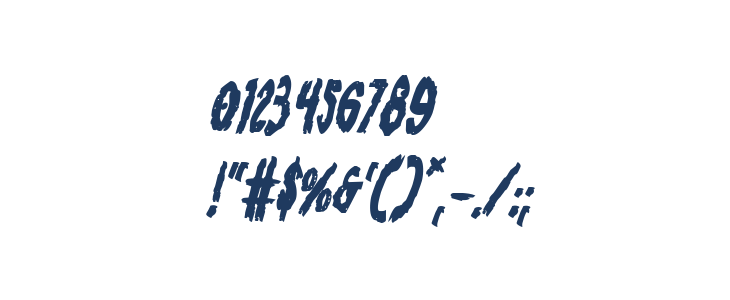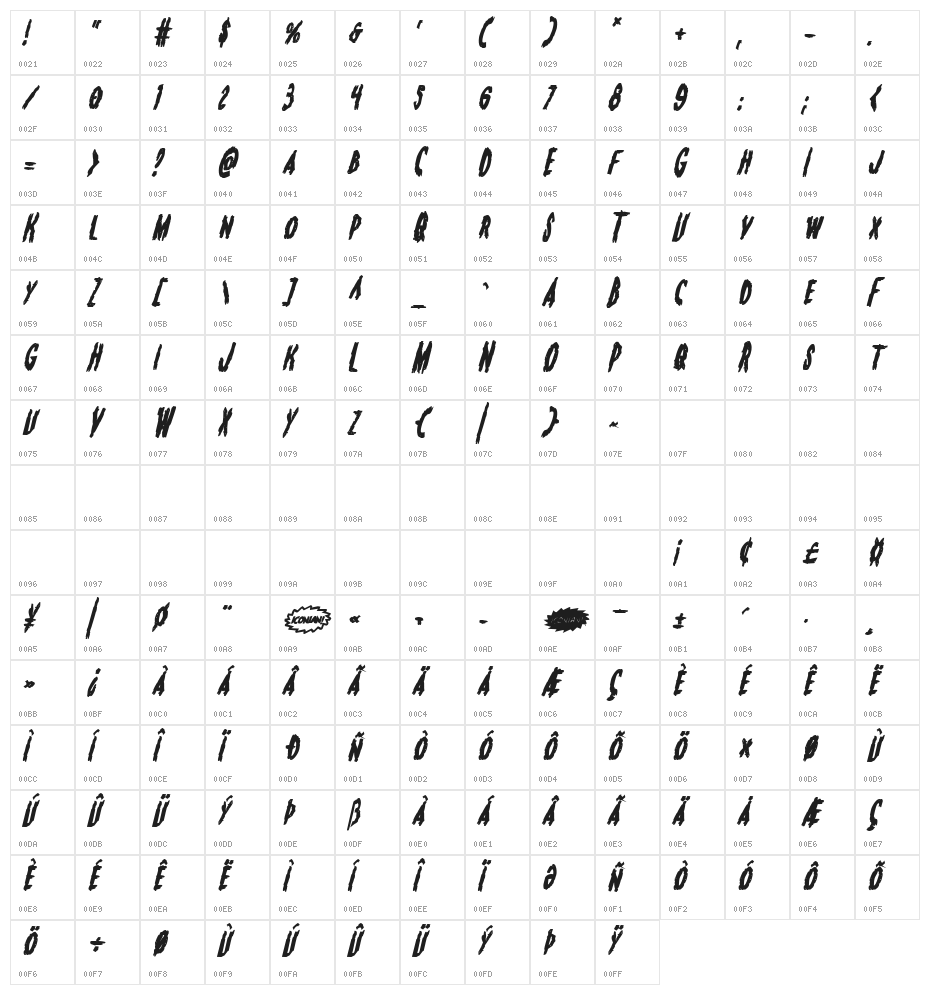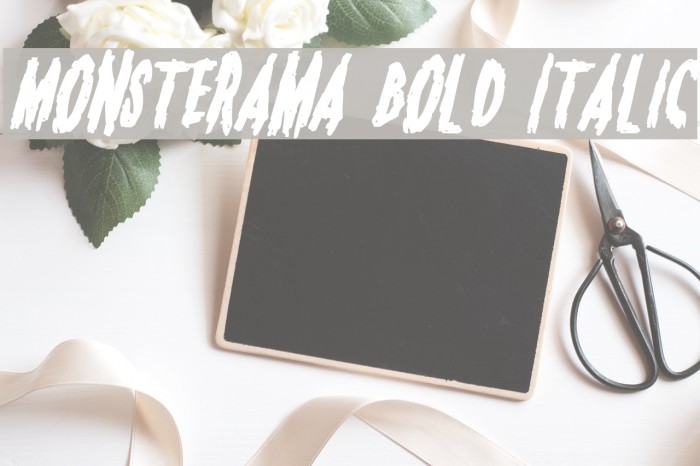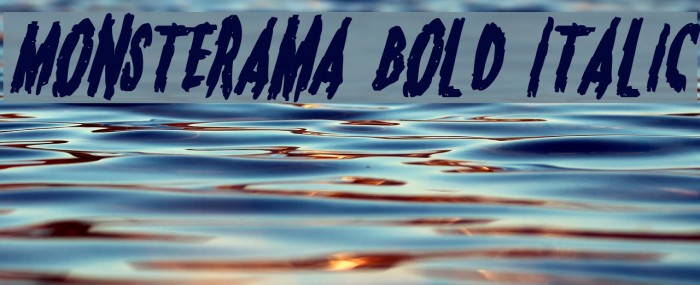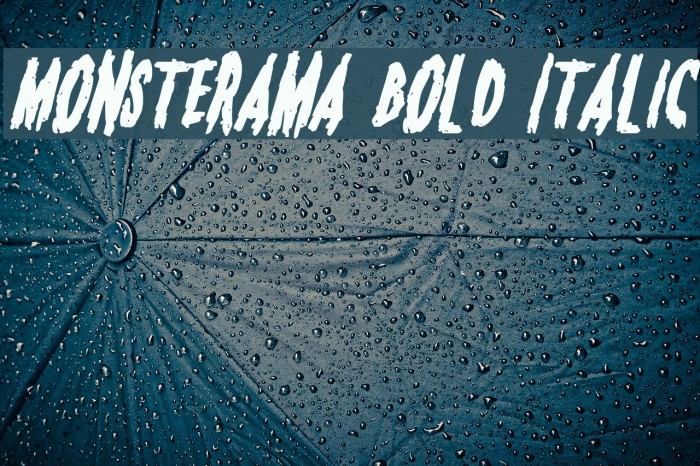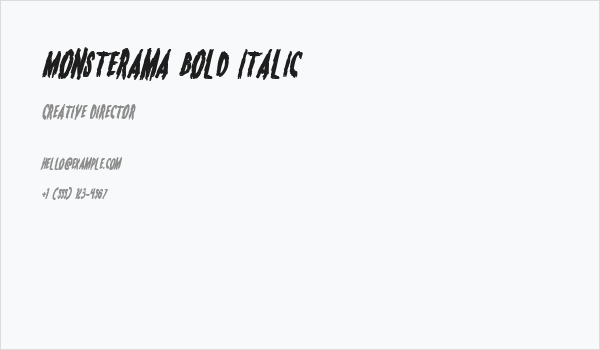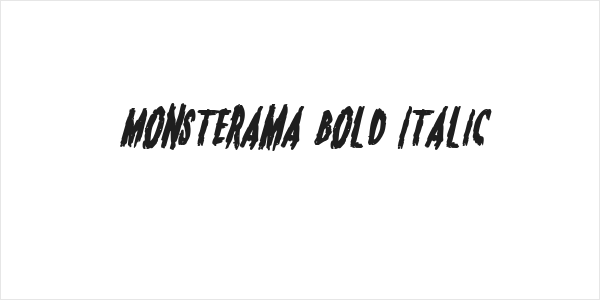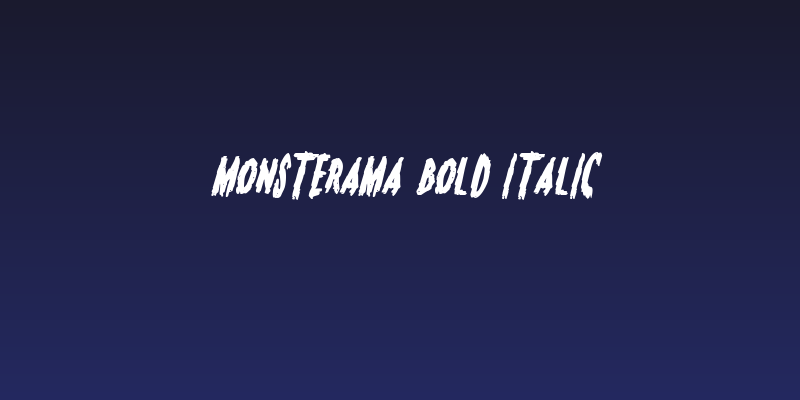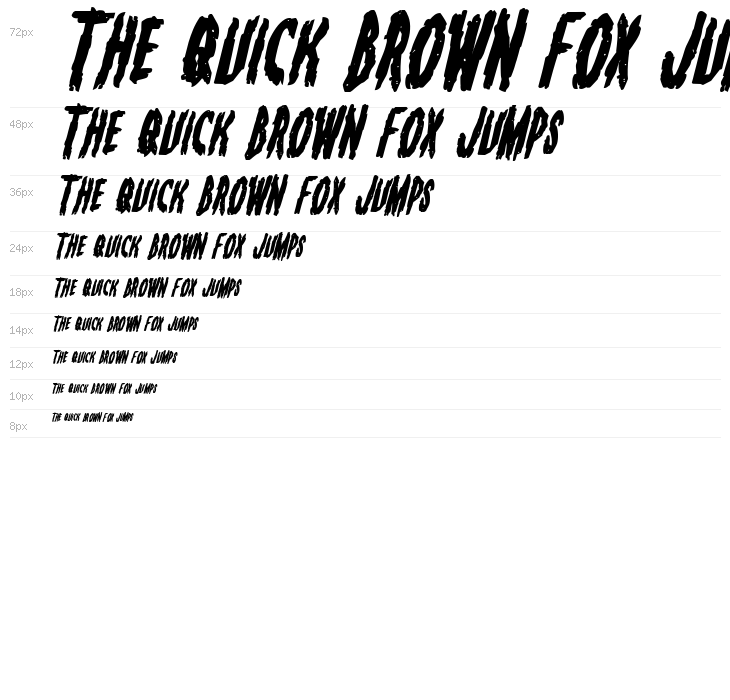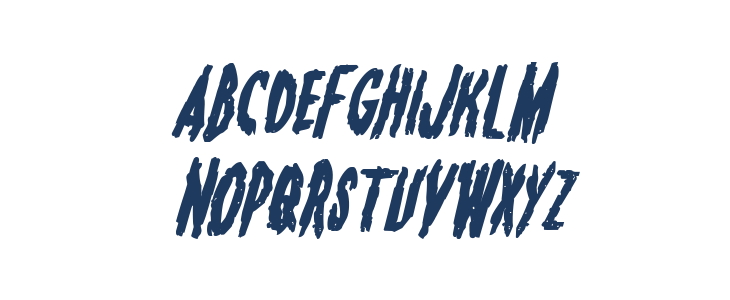
Monsterama Bold Italic Font
Monsterama Bold Italic Description
This font features a bold and italicized style with a distinct, rugged appearance. The characters are heavily stylized, with rough, jagged edges that give it a hand-drawn, distressed look. The uppercase and lowercase letters maintain a consistent design, with exaggerated strokes and a dynamic slant that adds energy and movement. Numbers and special characters follow the same aesthetic, ensuring uniformity across all glyphs. The font's unique texture and bold presence make it stand out, ideal for projects that require a dramatic and eye-catching typeface.
| Proposed Projects | Perfect for horror-themed posters, edgy branding, album covers, and graphic novels. |